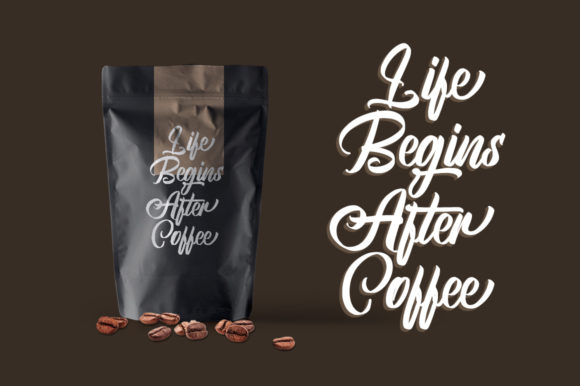
Brightsome Font
About Brightsome Font
Brightsome is a friendly and modern script font with a unique style. It will add a romantic touch to any crafting project!